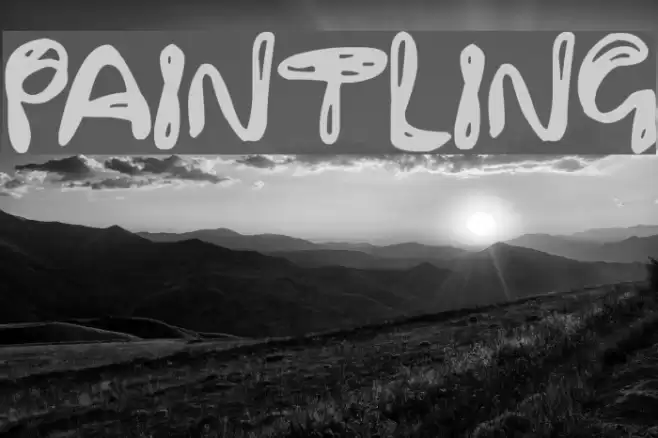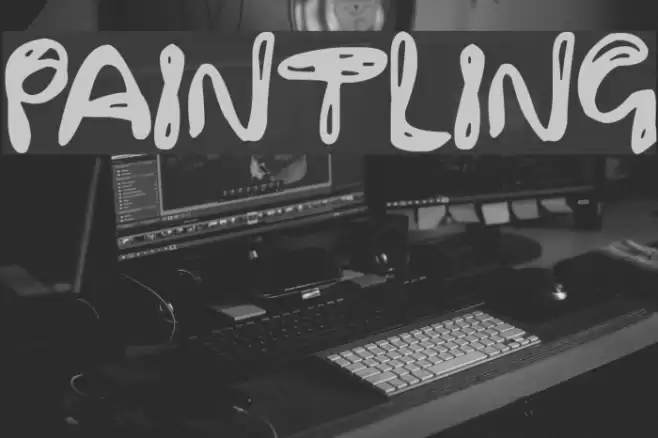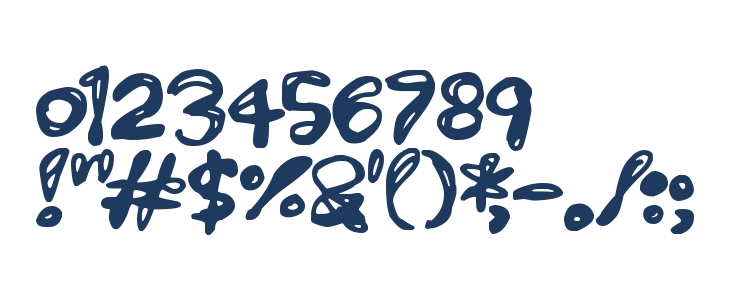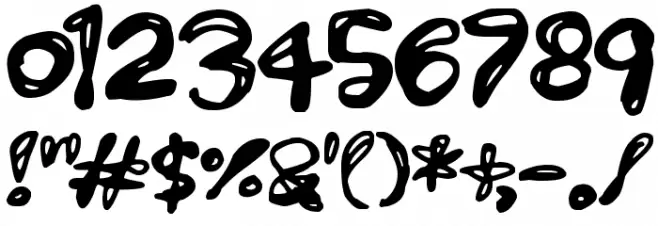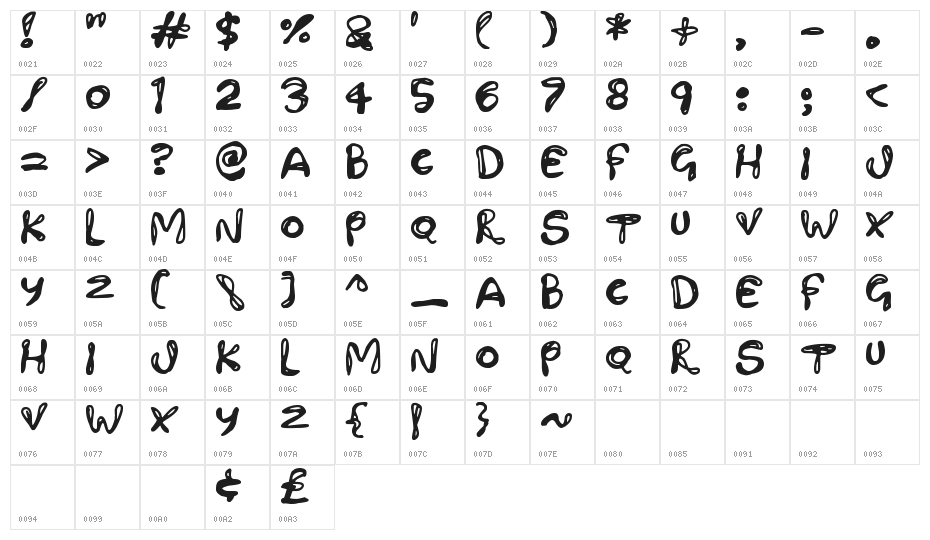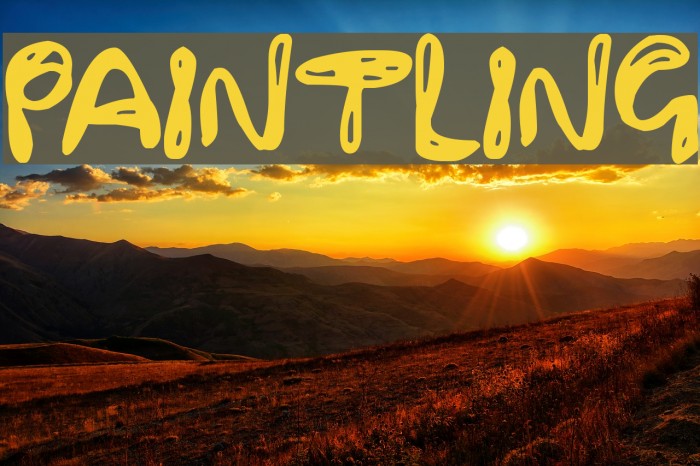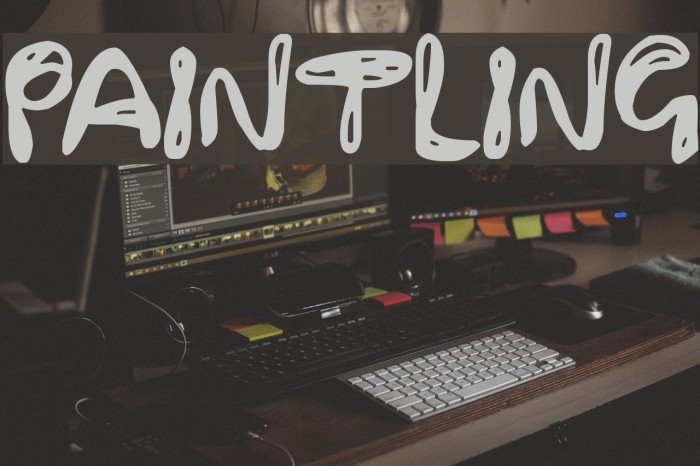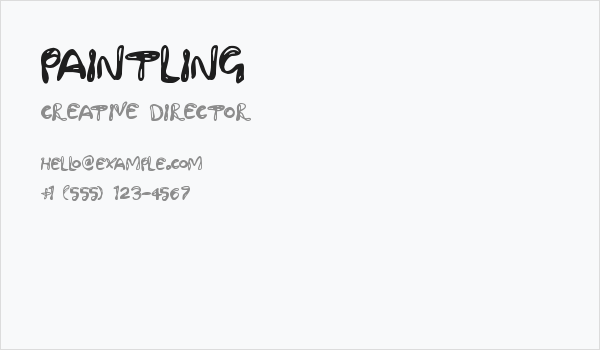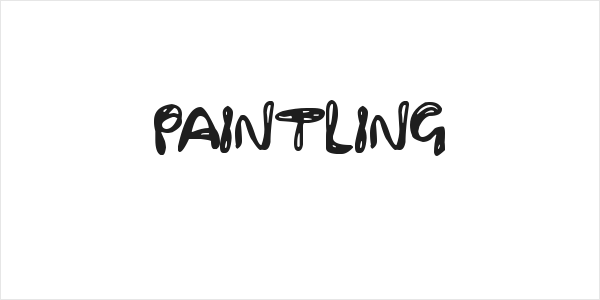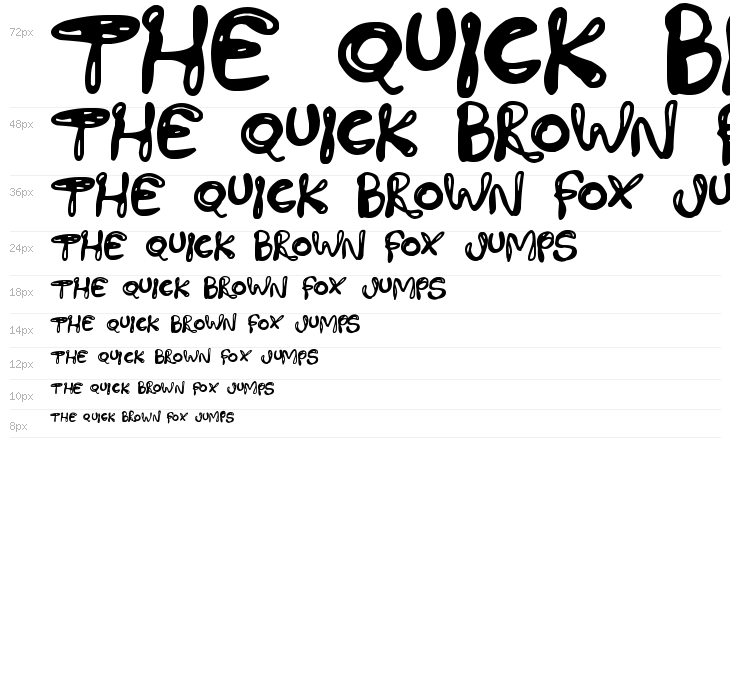
Paintling Font
Paintling Description
This font features a playful and artistic style, characterized by its bold, fluid strokes and whimsical forms. Each character appears as if it has been painted with a brush, giving it a dynamic and lively appearance. The letters are rounded and slightly irregular, adding to the hand-drawn aesthetic. The numbers and special characters maintain this artistic flair, ensuring a cohesive look across all glyphs. The overall design is eye-catching and expressive, making it ideal for creative projects that require a touch of personality and uniqueness.
A bold, playful font with a hand-painted, artistic style from Uncategorized fonts.
- Proposed Projects: Ideal for children's books, creative posters, art projects, and branding that requires a fun and lively touch.